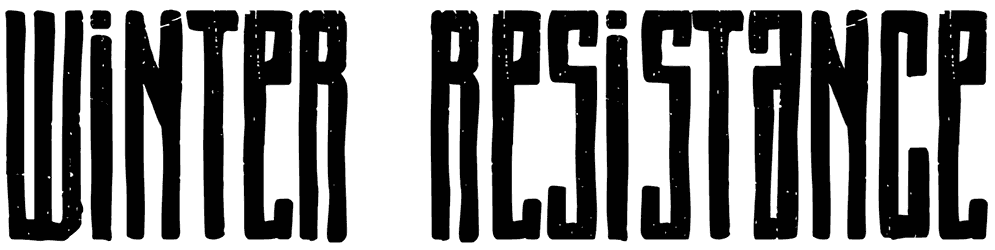
Winter Resistance Font
It doesn’t matter whether you want to design casual artwork like street posters, graffiti, social media posts, or even critical graphic projects, including video game posters and product packaging, a magical adventure font such as Winter Resistance can be your first preference on every occasion.
This all-caps masterpiece comes with tall characters, thus it carries a sense of eerie, exotic, jauntiness, or grunge. In addition, check out the RB font collection for more products or daily updates.
Winter Resistance.